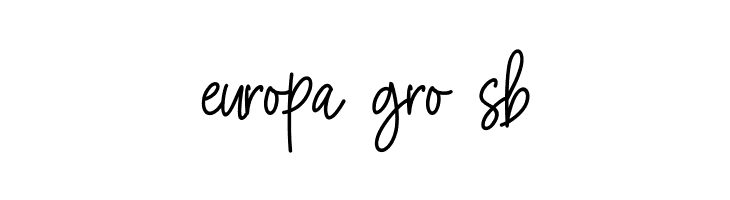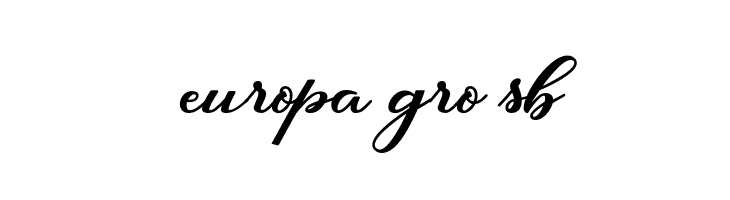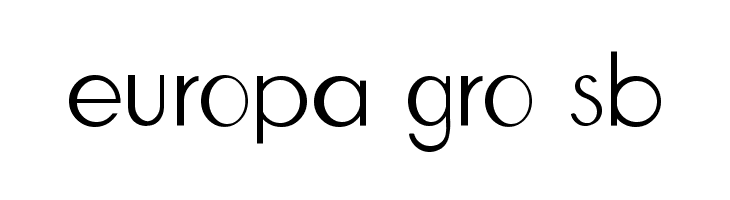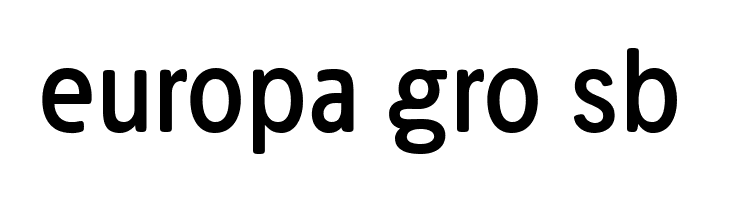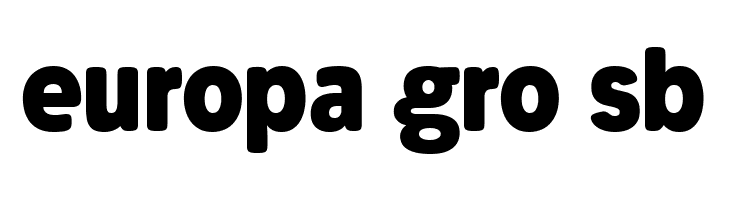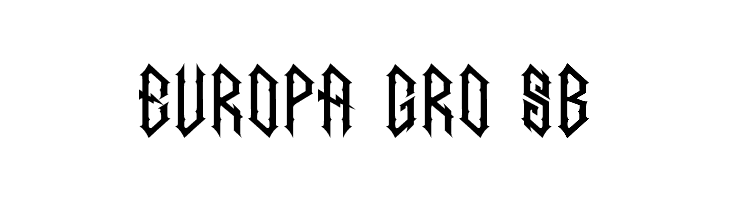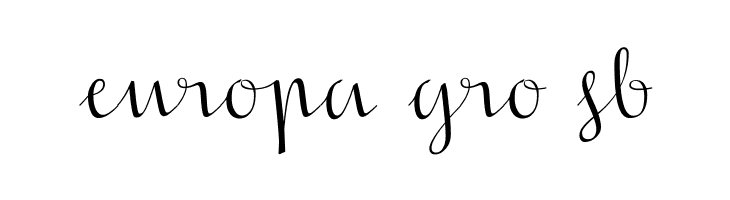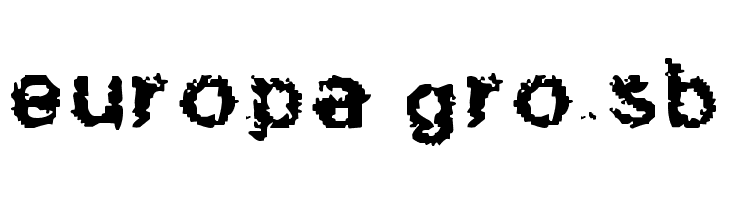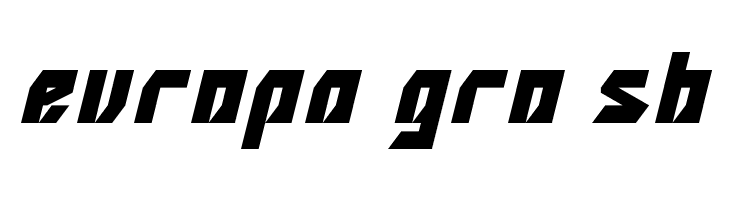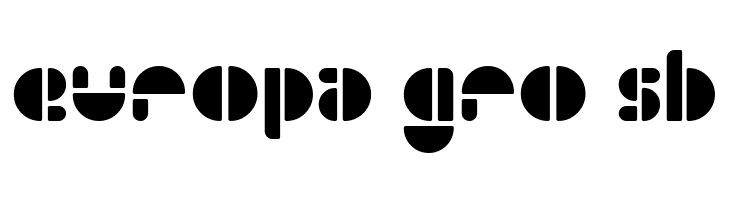
A modern, italicized font with smooth curves and consistent stroke width.
A modern, light sans-serif font with clean lines and excellent readability.
A sleek, modern, light italic sans-serif font with elegant slant and high readability.
A decorative, distressed font with an eroded, rugged appearance.
A dynamic and expressive handwritten font with fluid, flowing letterforms.
A sophisticated script font with elegant, flowing letters and ornate details.
A bold, geometric font with a strong, industrial style.
A versatile set of icons and symbols for enhancing typographic projects.
A bold, geometric stencil-style font with a modern, futuristic look.
A dynamic handwritten font with fluid strokes and playful elegance.
A modern, geometric sans-serif font with a clean and bold appearance.
A bold, angular font with a futuristic and edgy design.
A bold, playful script font with a handwritten style.
A bold, angular font with a gothic and edgy style.
A modern geometric sans-serif font with bold, clean lines.
A lively handwritten font with fluid strokes and a modern, approachable style.
A bold, geometric font with a futuristic and abstract design.
A sophisticated script font with fluid, connected strokes and elegant curves.
A playful, handwritten script font with bold uppercase and fluid lowercase letters.
A bold, geometric font with a modern and robust style.
A playful, bold font with rounded, hand-drawn characters.
A bold, modern sans-serif font with strong, thick strokes and a clean, assertive style.
A bold, modern font with clean lines and consistent stroke width.
A clean, modern sans-serif font with a minimalist design.
A modern, italic sans-serif font with clean lines and balanced proportions.
A modern, italic sans-serif font with a clean and professional look.
A bold, heavy font with strong, uniform strokes and rounded edges.
A bold, rounded font with a friendly and approachable style.
A bold, rounded font with smooth curves and a modern, friendly appearance.
A bold, rounded, and italic font with a modern and friendly style.
A modern, rounded typeface with a friendly and approachable design.